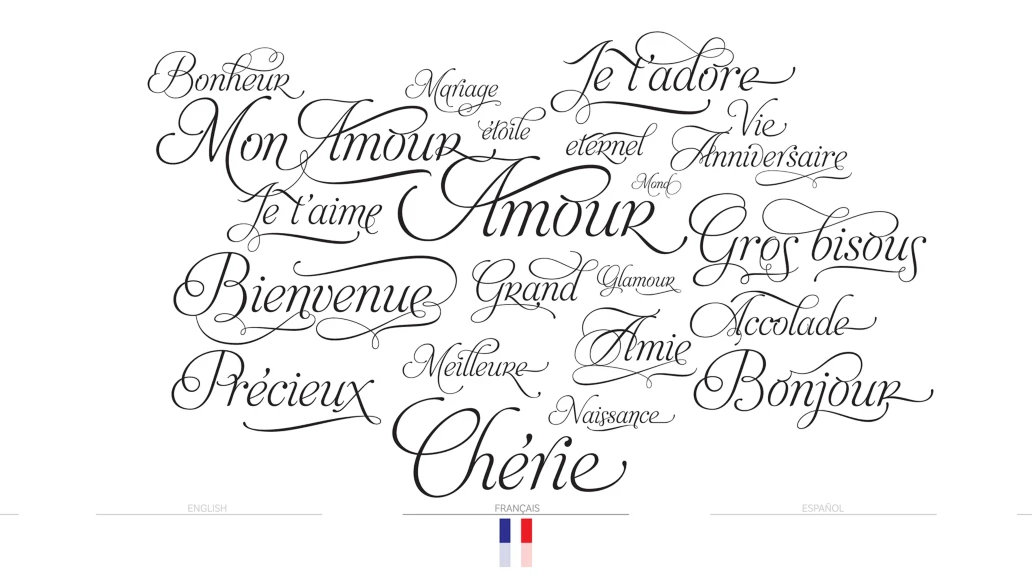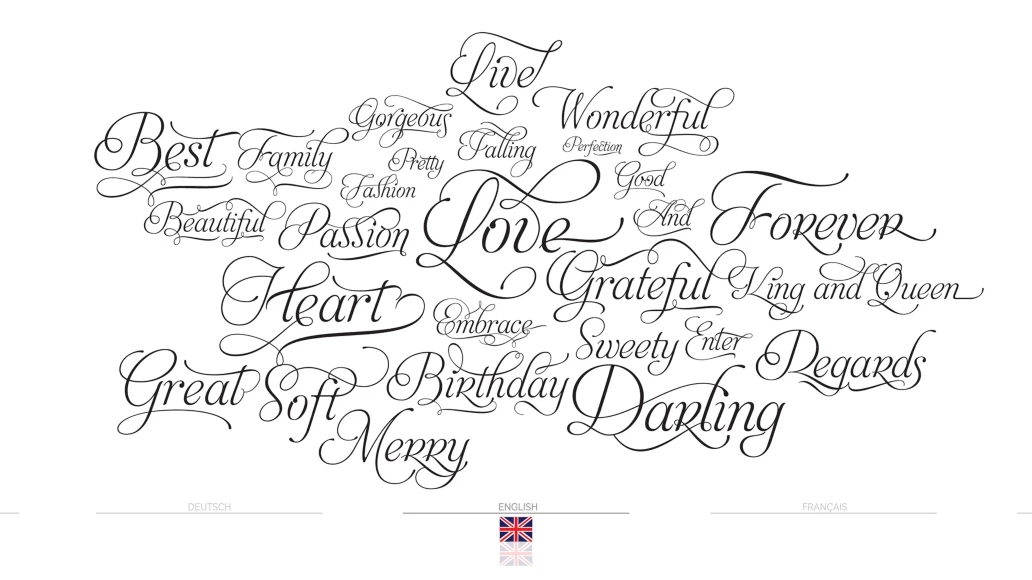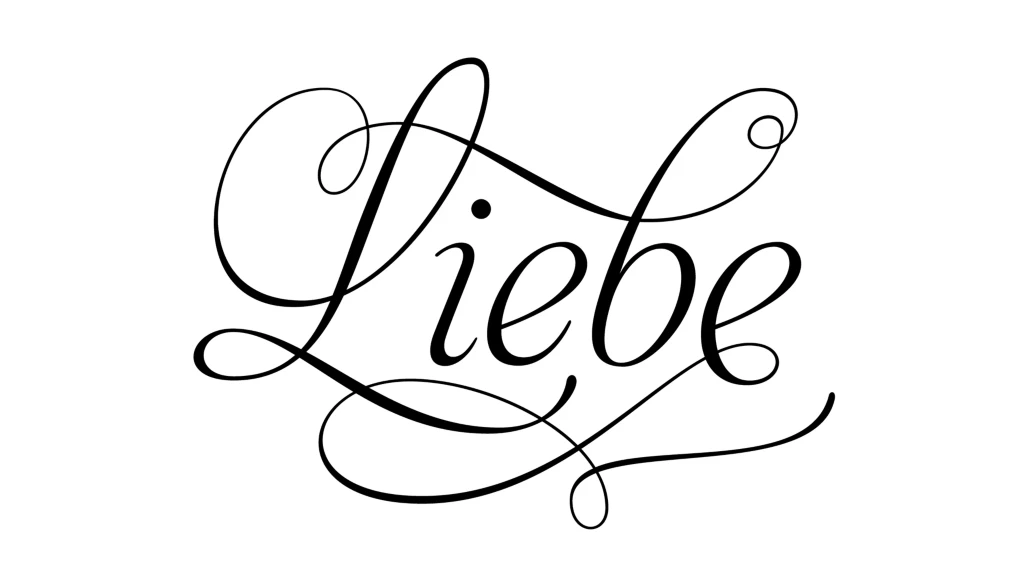
Aphrodite
From Typesenses
Aphrodite Pro is an amazing handmade font full of alternate and ligature forms designed by Sabrina Lopez and Maximiliano Sproviero. Check out the brochure in the Gallery section to see some examples of this OpenType font in use and the wide range of combinations possible.
Designed by Sabrina Lopez